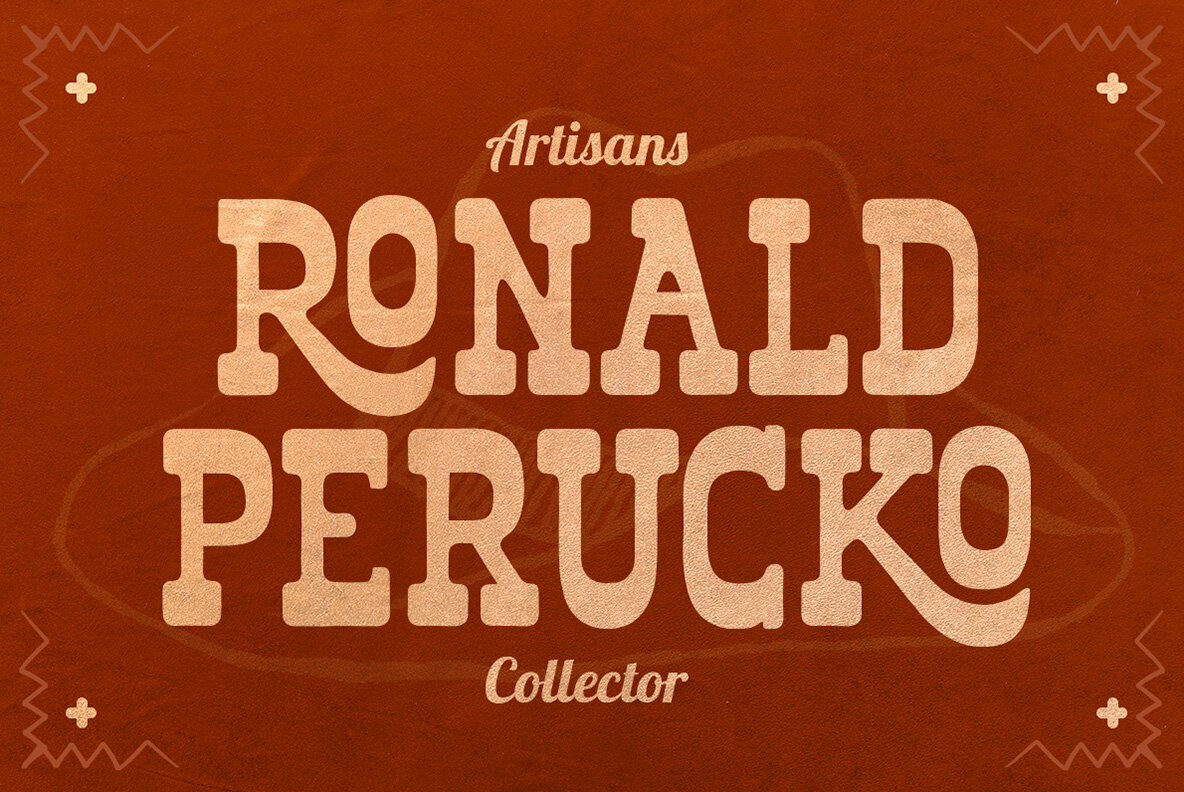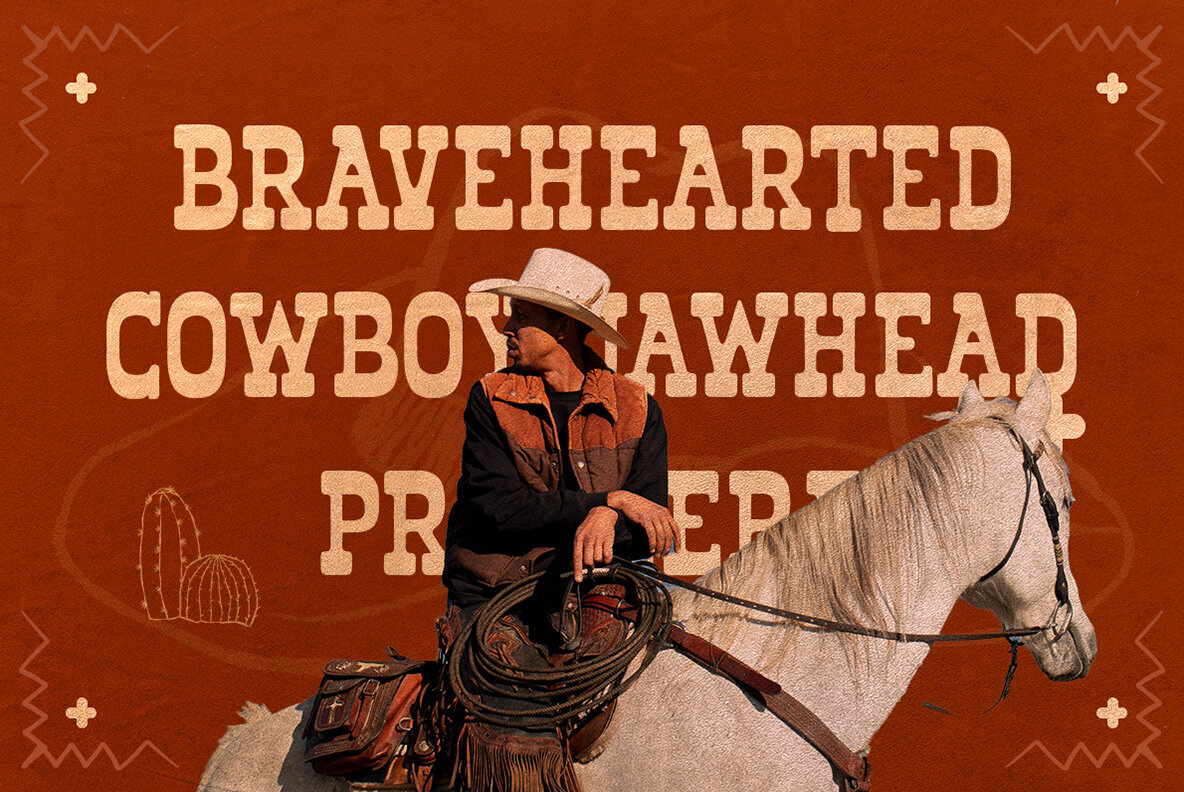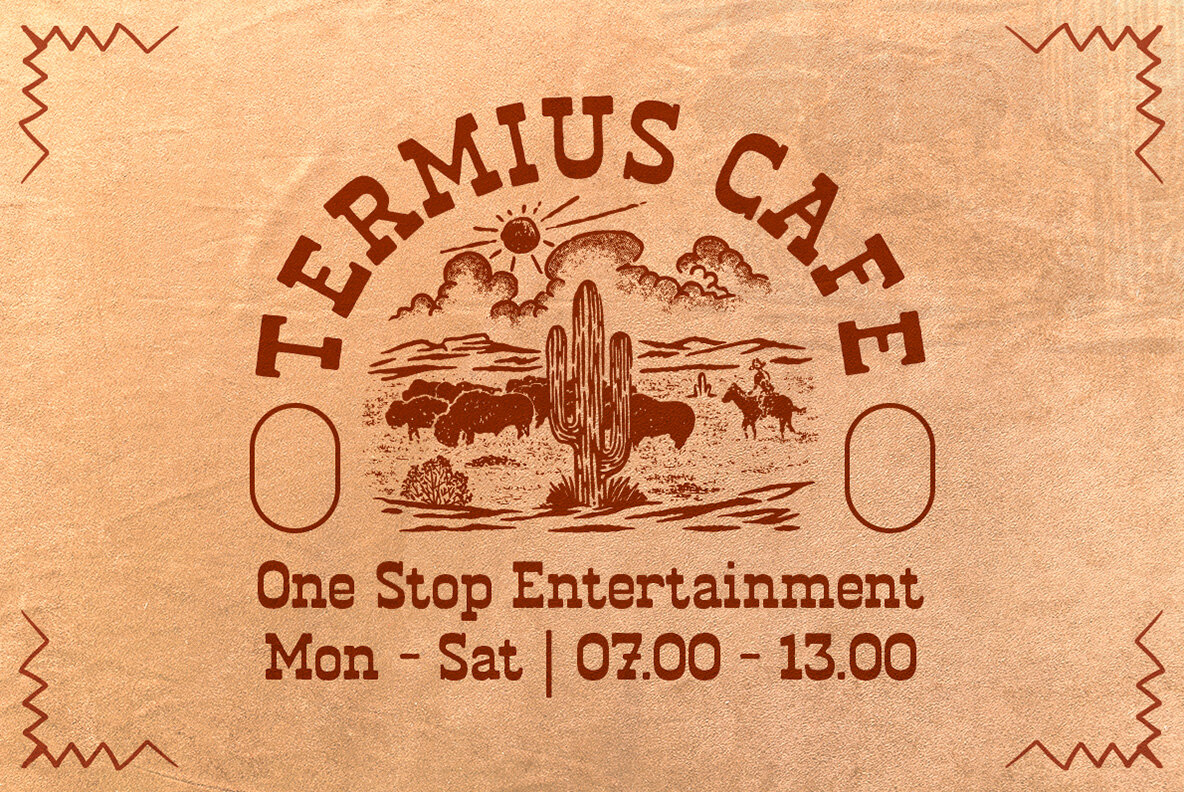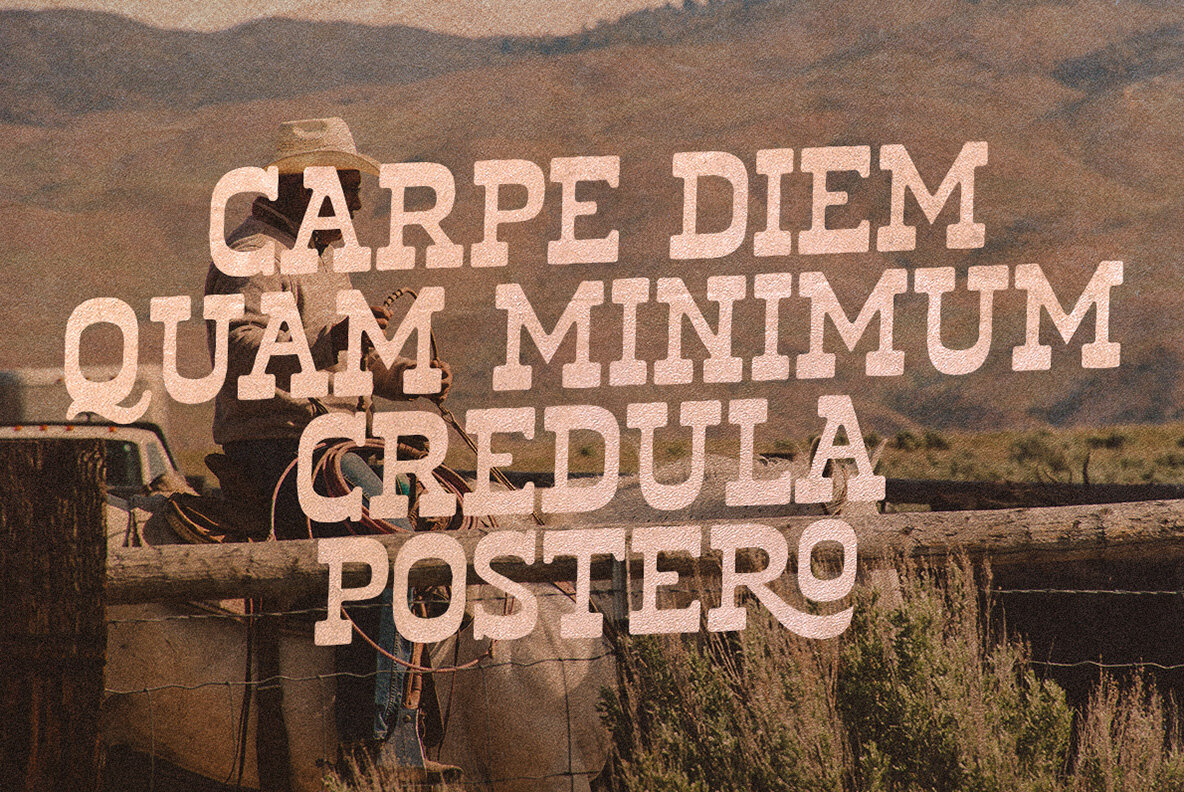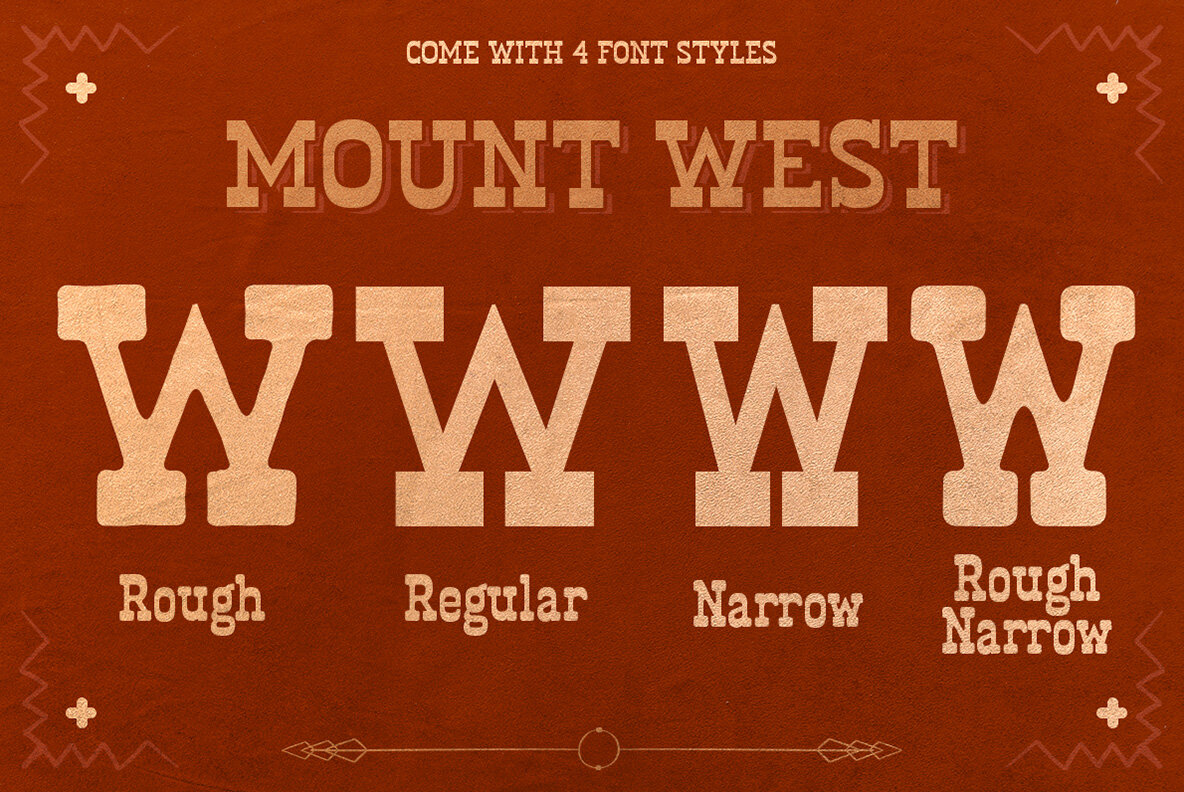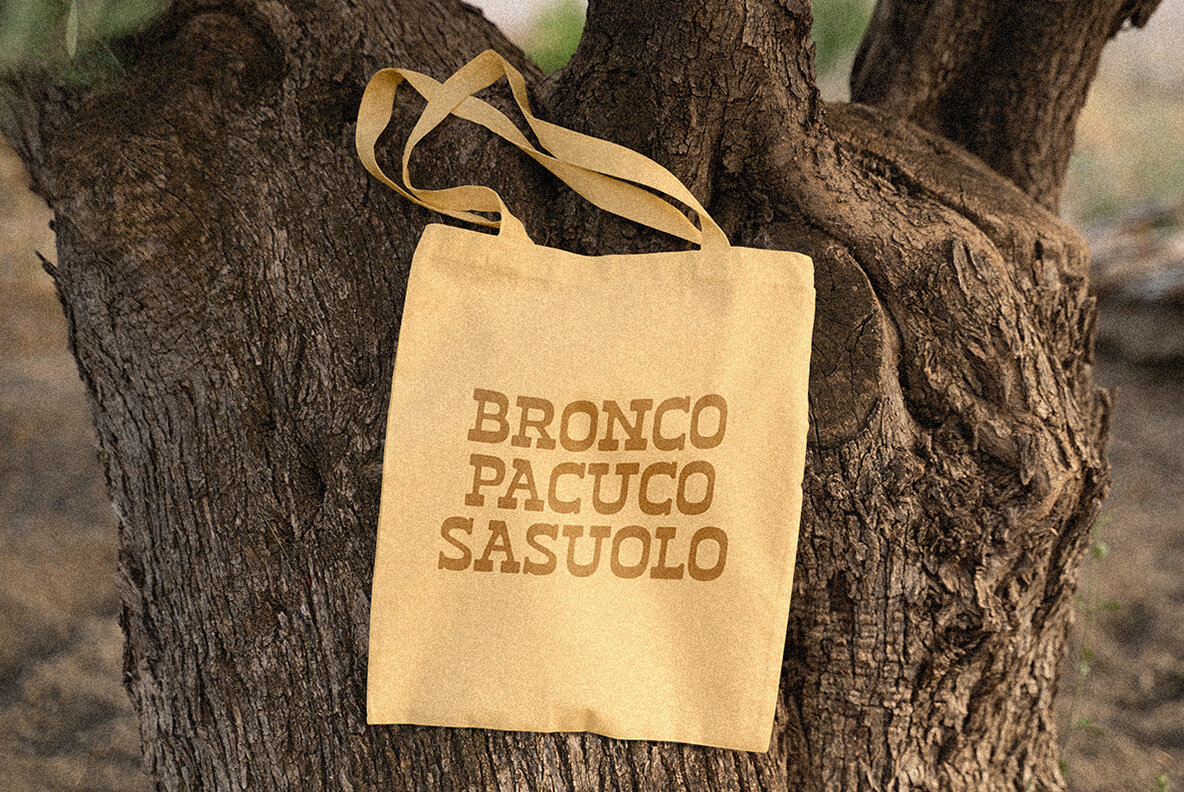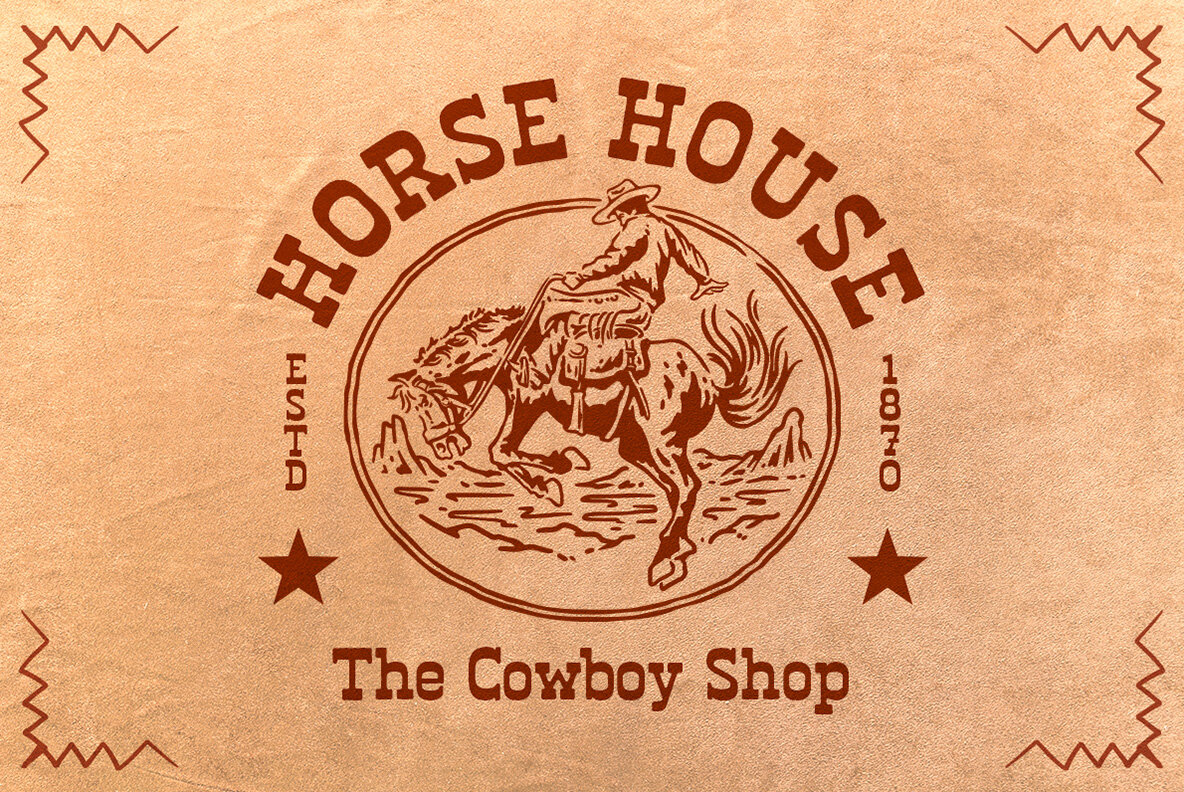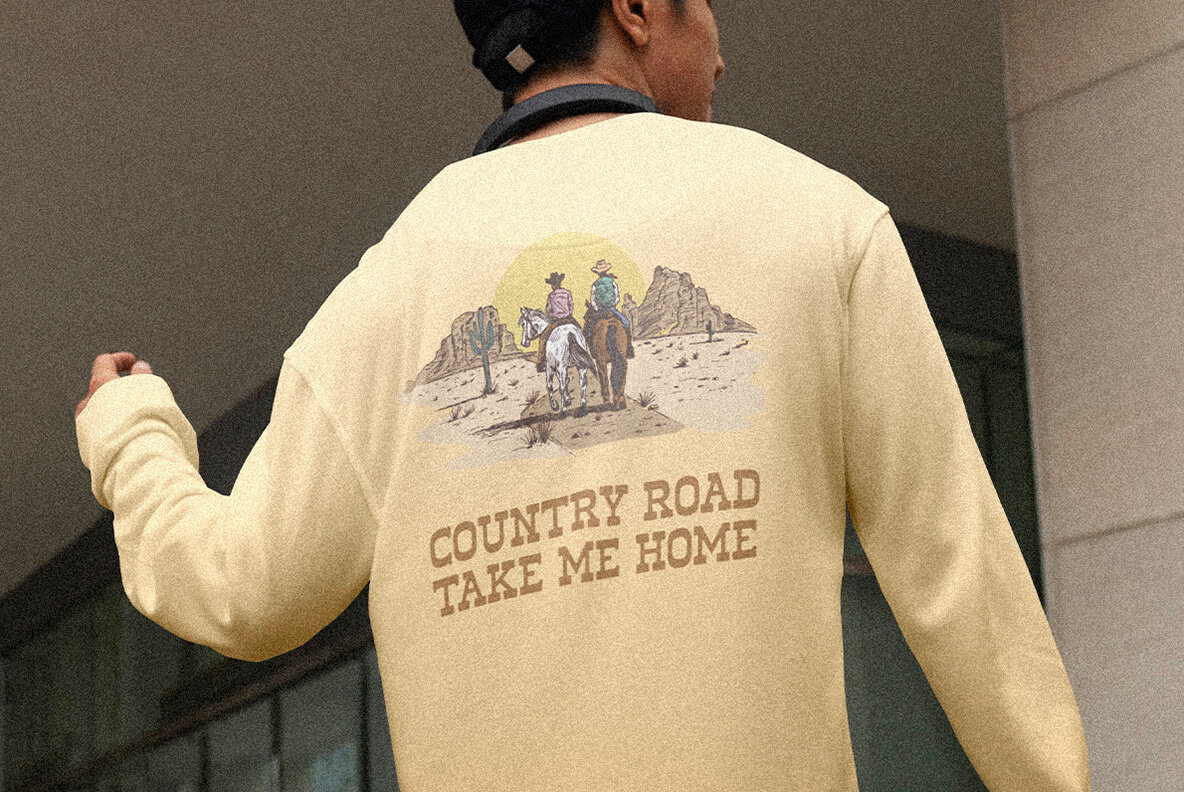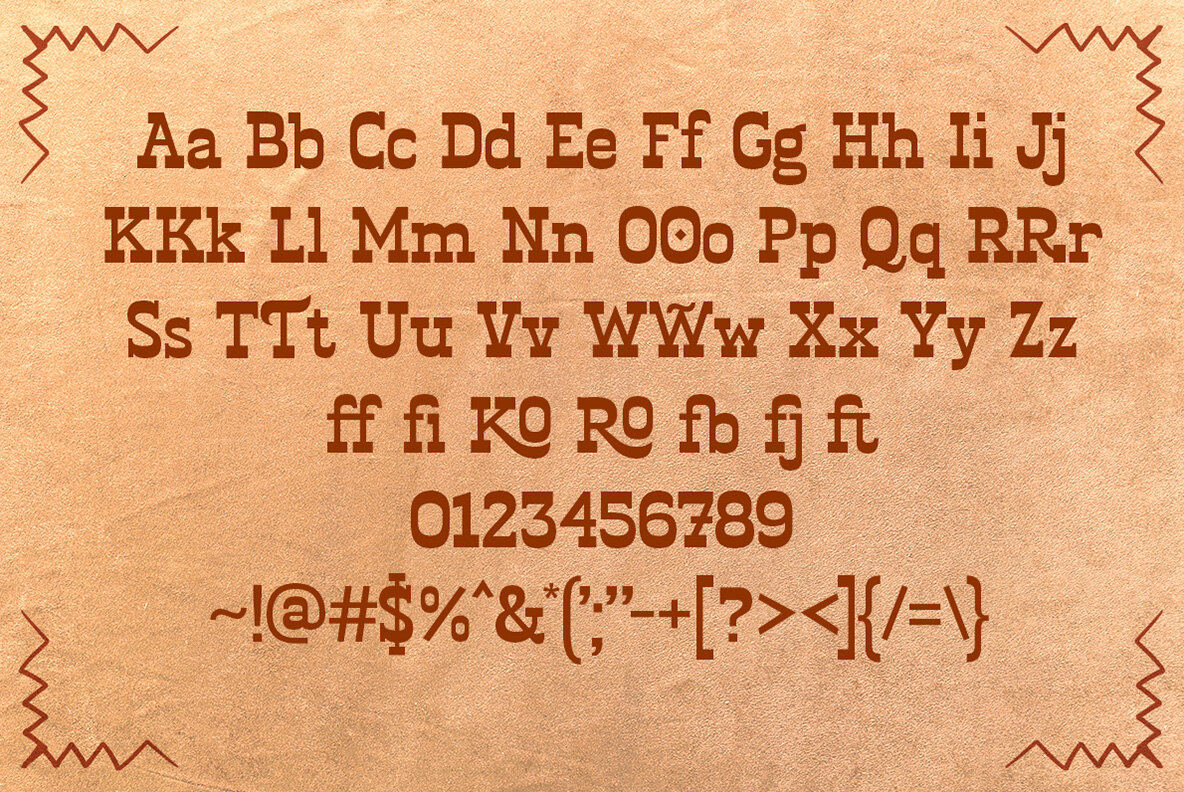
Mount West Font
Introducing Mount West, a bold and rugged display font that embodies the untamed spirit of the Wild West. Perfectly crafted by Viswell Studio, this typeface captures the raw charm of desert landscapes and cowboy culture. Featuring four versatile styles — Narrow, Regular, Rough, and Rough Narrow — Mount West brings a handcrafted, vintage texture that is perfect for logos, posters, branding, packaging, and more. Its strong visual presence and authentic frontier vibe make it the ideal choice for designers seeking a bold, rustic aesthetic.